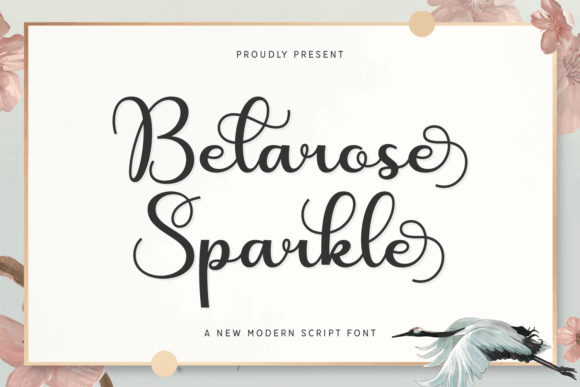
Discovering the Magic of Belarose Sparkle Font
As a designer, there’s nothing quite like the thrill of stumbling upon a new font that makes your heart skip a beat. For me, it was the moment I laid eyes on Belarose Sparkle Font – a modern script font that exudes elegance and charm. Its smooth curves and stylish swashes had me hooked from the start, and I couldn’t wait to see what kind of creative magic I could make with it.
Belarose Sparkle Font is more than just a pretty face – it’s a powerful tool for designers looking to add a touch of sophistication to their projects. Whether you’re crafting wedding designs, invitations, logos, or upscale branding, this font is sure to elevate your work to the next level. Its versatility and timeless charm make it a valuable addition to any designer’s toolkit.
Belarose Sparkle Font Key Features
- Unique Characteristics: Features a sparkling, cursive script with intricate details and flourishes, perfect for adding elegance to designs.
Belarose Sparkle Font Review
Overall, I think the Belarose Sparkle Font is a fun and playful addition to any design project. The sparkly, cursive script style is perfect for adding a touch of whimsy and elegance to invitations, cards, and other celebratory materials.
- Unique and eye-catching design that adds a touch of sophistication and glamour to any project.
- Great for creating a sense of celebration and festivity, making it perfect for wedding invitations, birthday cards, and other special occasions.
- Easy to read and understand, even in smaller font sizes.
- Might not be suitable for more formal or professional projects, as it can come across as too playful or childish.
- Can be a bit too bold or overwhelming if used extensively throughout a design.
While the Belarose Sparkle Font has some limitations, I think it’s a great addition to any designer’s toolkit. With its unique and eye-catching design, it’s perfect for adding a touch of personality and whimsy to celebratory materials. Just be sure to use it judiciously and in moderation to avoid overwhelming the design.
Use the Belarose Sparkle Font for creating eye-catching titles, headings, and quotes
Pair it with bold, bright colors to enhance its sparkle effect
Experiment with different font sizes and styles to achieve the desired look
Wedding invitations, party decorations, and social media graphics
Product labels, packaging, and branding materials
Marketing materials, brochures, and flyers
Alternatives to Belarose Sparkle Font
The Great Vibes Font is a beautiful, elegant script font that is perfect for creating a sense of luxury and sophistication. It is ideal for use in branding, advertising, and editorial design. Compared to Belarose Sparkle Font, Great Vibes Font has a more refined and delicate feel, making it suitable for high-end projects.
Carolyna Pro Font is a modern, stylish script font that is great for use in fashion, beauty, and lifestyle design. It is perfect for creating a sense of glamour and sophistication. Compared to Belarose Sparkle Font, Carolyna Pro Font has a more contemporary feel and is better suited for modern and trendy projects.
Alex Brush Font is a elegant, handwritten font that is perfect for creating a sense of warmth and personality. It is ideal for use in editorial design, branding, and advertising. Compared to Belarose Sparkle Font, Alex Brush Font has a more personal and whimsical feel, making it suitable for projects that require a touch of humanity.